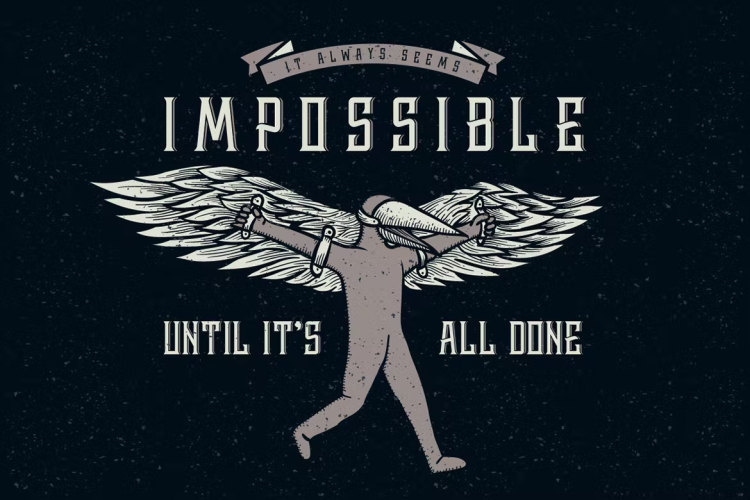
Whiskey label Font
Hi everyone! This font set contains three modifications of “Whiskey font” in OTF and TTF formats. Inspired by old classic look alcohol beverages. Thank you and have fun!
Where Whiskey label Font works best
Reports, white papers and book interiors hold the eye longer when the text face has real serifs; Whiskey label Font keeps that rhythm without looking old-fashioned.
Food, spirits and cosmetics brands lean on serif wordmarks to suggest age and care. Whiskey label Font gives that signal at wordmark size.
Set Whiskey label Font for the body of an award or a diploma and keep the recipient name in a script; the pairing is what makes a document feel official.
What kind of work does Whiskey label Font suit?
It sits in the Serif Fonts group and reads as classic, professional, serif, serif fonts. That makes it a candidate wherever those qualities help: headings, packaging, social graphics and brand work. Set it at the size you plan to use before deciding.